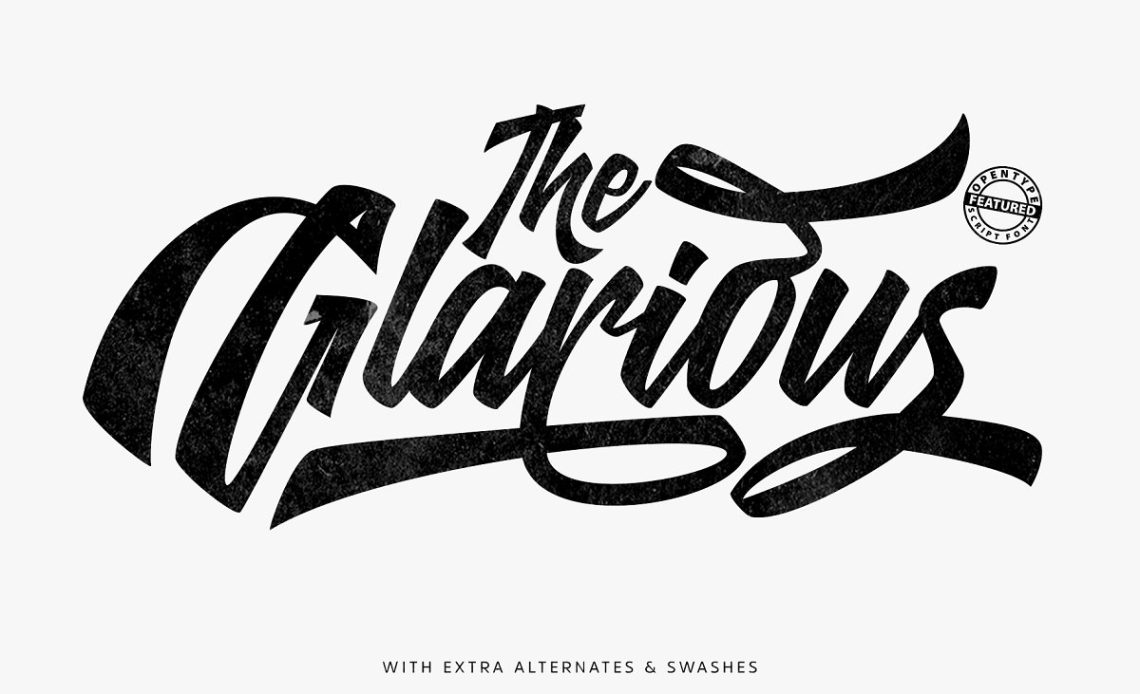
Discover the exquisite beauty of Glarious Script, the ultimate calligraphy font designed by the talented Anton Cahyono. Whether you're a professional designer or simply want to add a touch of elegance to your personal projects, Glarious is the perfect choice for you.
With its sleek and sophisticated design, Glarious Script is specifically crafted for various purposes, including logotypes, apparel, invitations, branding, packaging, and advertising. Its versatility knows no bounds, making it an indispensable tool for all your creative endeavors.
Featuring a comprehensive set of characters, Glarious includes uppercase and lowercase letters, punctuations, symbols, numerals, stylistic alternates, and swashes. This extensive range of options allows you to customize your words and create stunning designs with ease. Say goodbye to boring, repetitive fonts and embrace the boundless creativity that Glarious offers.
Not only does Glarious Script excel in its design, it also supports multiple languages, ensuring that your message can reach a global audience. From ÀÃ�ÂÃÄÅÇÈÉÊËÌÃ�ÃŽÃ�ÑÒÓÔÕÖØŠÙÚÛÜÃ�Žß to à áâãäåæçèéêëìÃîïñòóôõöøšùúûüýÿž, this font has got you covered.
When you choose Glarious Script, you're not just getting a font, but a gateway to limitless possibilities. Let your imagination run wild as you create captivating designs that leave a lasting impression.